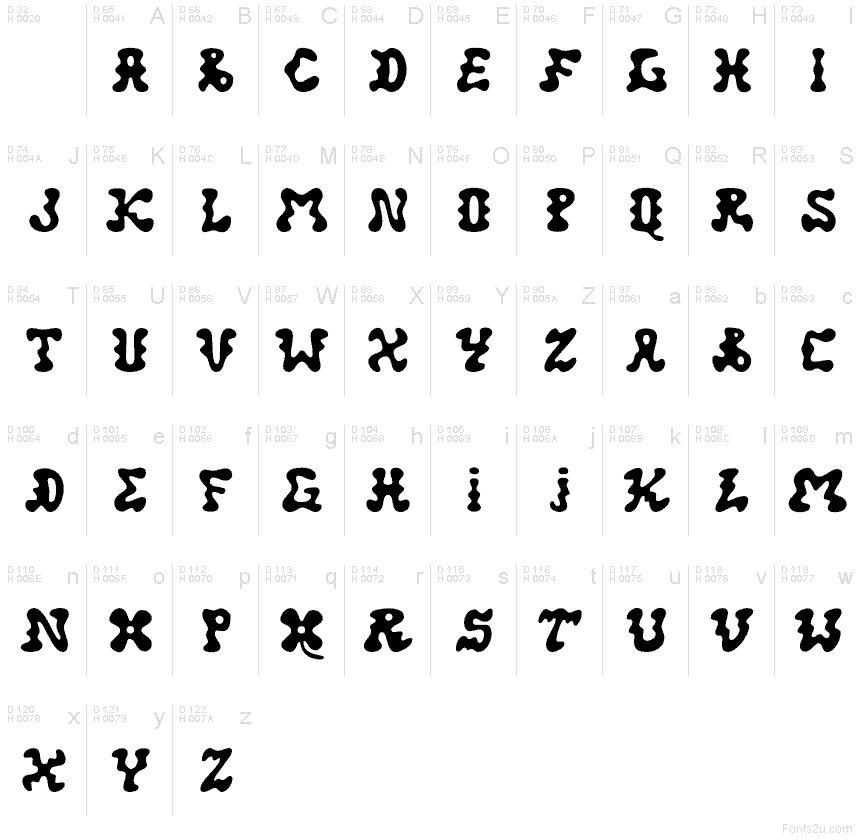
PleaturesBlur-Regular Demo
Pleatures Blur font by Craft Supply Co. is a bold modern display font with a cartoon style inspired by creative abstract fluid shapes. This artistic edgy font combines an uneven baseline and different heights/depths with some overlapping areas and unpredictable spaces for unique distorted impressions.
It truly brings modern-flavored originality to branding, ads, posters, banners, packaging, blog headers, and social media. Absolutely any project benefits from the unconventional non-traditional superb aesthetic of Pleatures Blur – free for everyone’s enjoyment!